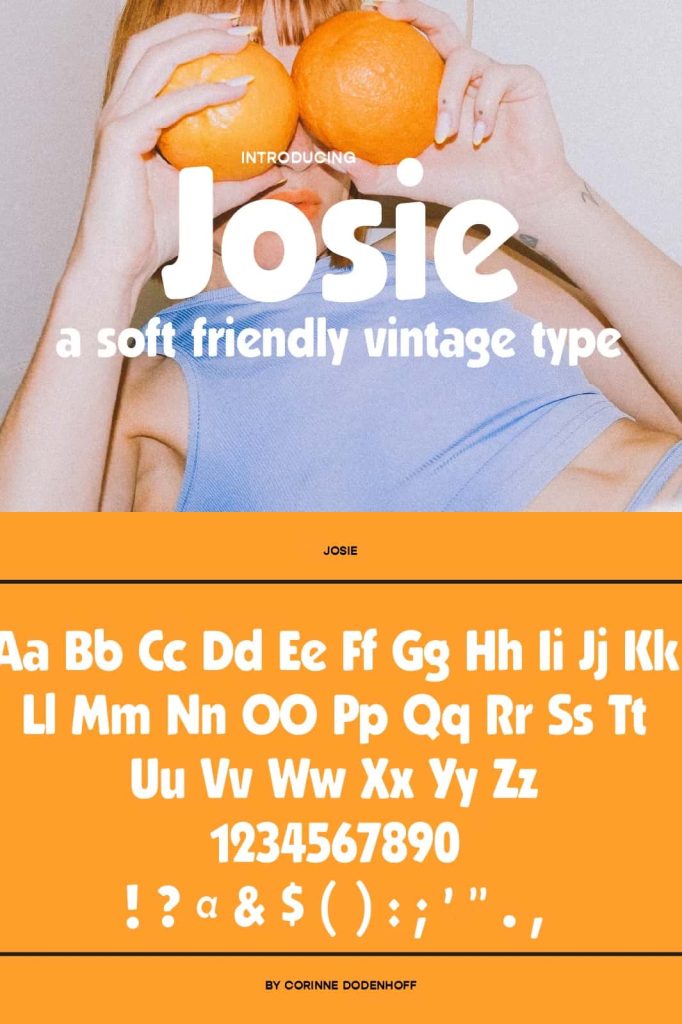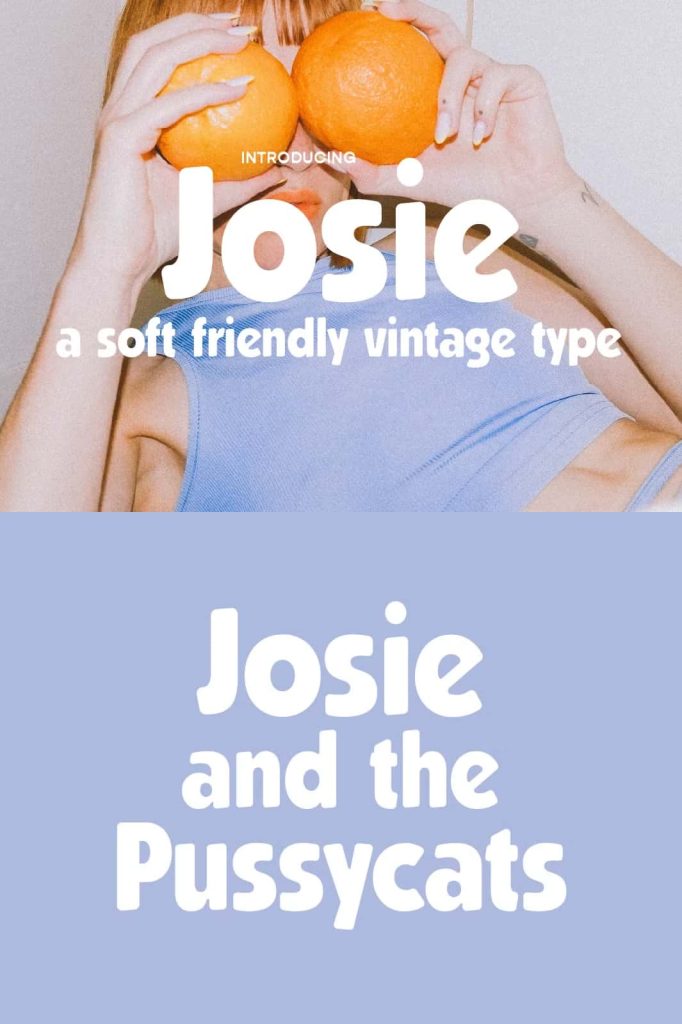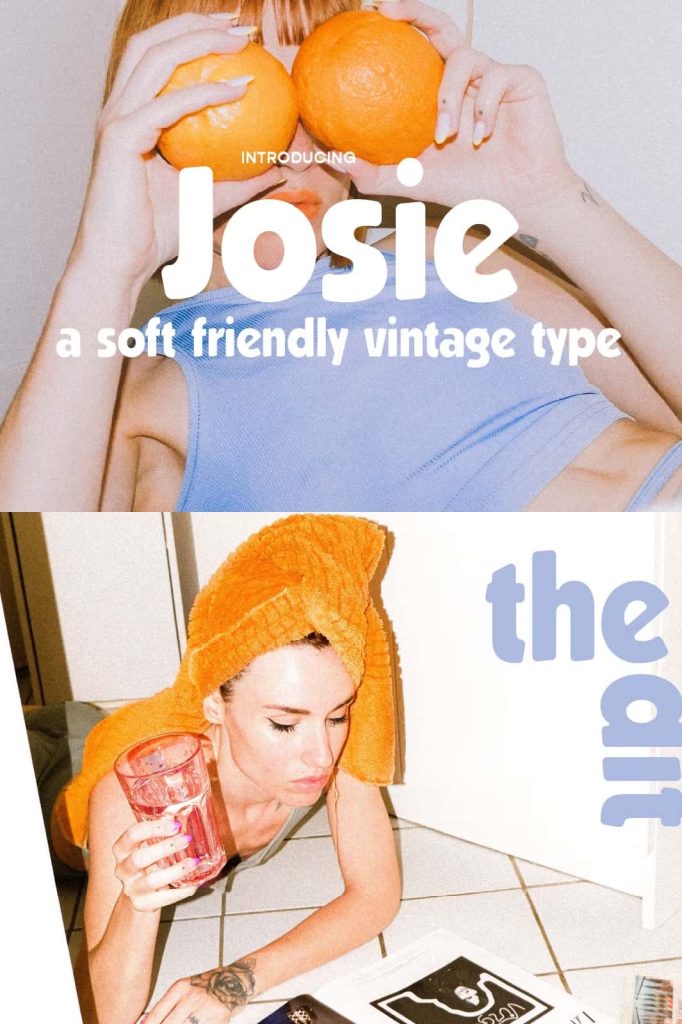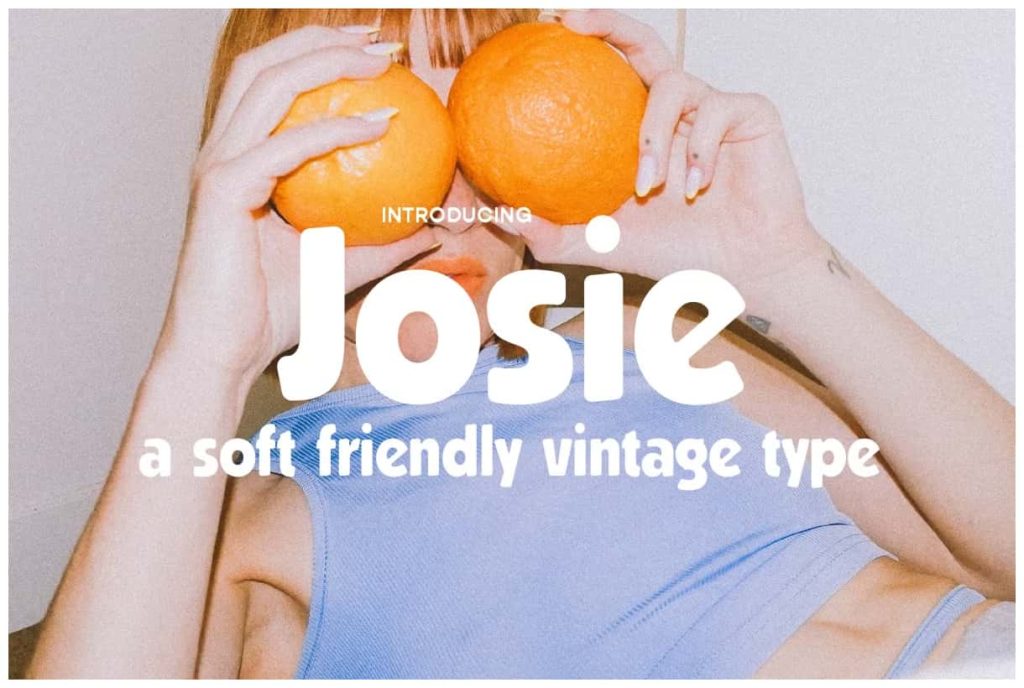
Josie: A Soft Friendly Retro FontleastedMarch 31, 2025Fonts Like a phone call from your bestie, Josie is a soft, friendly, slightly offbeat vibe. Download